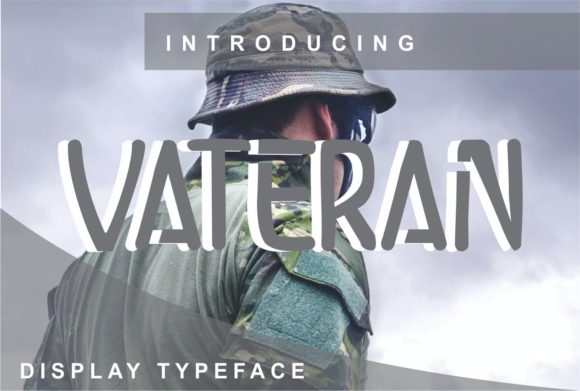
Unleash the Power of Expression with Vateran Font - The Ultimate Creative's Companion
In the realm of typography, where words take flight and ideas find their voice, Vateran Font emerges as a game-changer, a font family that ignites imagination and transforms your creative vision into a mesmerizing reality. Designed with meticulous attention to detail by the renowned Letteria_studio, Vateran is not just a font; it's an artistic masterpiece that elevates your designs to new heights.
Journey through a world of boundless creativity with Vateran Font, a display font that captivates audiences with its adaptability and trendsetting style. Its versatile nature makes it the perfect choice for a diverse range of projects, from captivating logos and eye-catching headlines to enchanting invitations and heartfelt letters. With Vateran, your words dance across the page, leaving an unforgettable impression on all who encounter them.
Embrace Vateran Font and watch as your designs take on a life of their own. Its unique character adds a touch of intrigue, a hint of elegance, and an undeniable charm to any project. Whether you're a seasoned designer or just starting your creative journey, Vateran Font becomes your trusted companion, guiding you towards stunning results.
Explore the limitless possibilities of Vateran Font and unlock the door to a world of exceptional typography. Its dynamic presence commands attention, while its refined details ensure a timeless appeal. With Vateran, you'll never settle for ordinary; you'll create designs that ignite conversations and leave a lasting impact.
Step into the spotlight and let Vateran Font amplify your creative expression. Discover the boundless potential within its curves, the captivating allure of its strokes, and the sheer brilliance of its overall design. With Vateran, your words become a symphony of visual delight, resonating with your audience on a profound level.
Say goodbye to mundane typography and embrace the transformative power of Vateran Font. Its ability to elevate any creation is truly remarkable, making it the secret weapon in your creative arsenal. Harness the magic of Vateran and witness the extraordinary come to life.